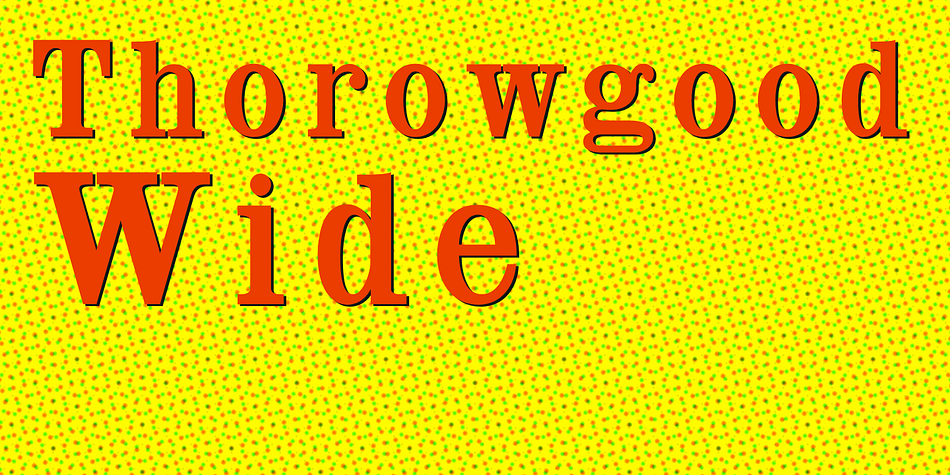
Designed by Jordan Davies, Thorowgood Wide is a display slab font published by Wooden Type Fonts.
One of the original Clarendon types, an English design, here derived from a specimen taken from an American foundry, no identifying marks. With a tall x-height, wide version, unlike more traditional Clarendons, not a square serif but bracketed.
Unique to this Clarendon are the rounded openings at the points where the horizontal and vertical stems meet in the capital B, D, P and R, not common in other Clarendons.